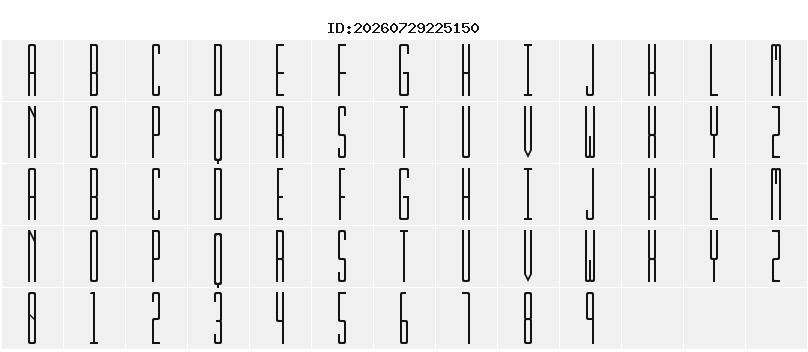
• Font Name: Kibby Sans
• Designer: jakeluedecke
• Description: ‚ÄúKibby Sans‚Äù was built with FontStruct
Kibby Sans.ttf is a modern, elegant sans-serif font designed for ultimate readability and visual harmony. Perfect for branding, headlines, web design, and print materials.